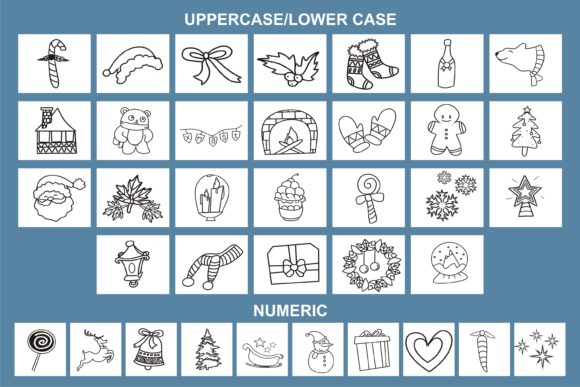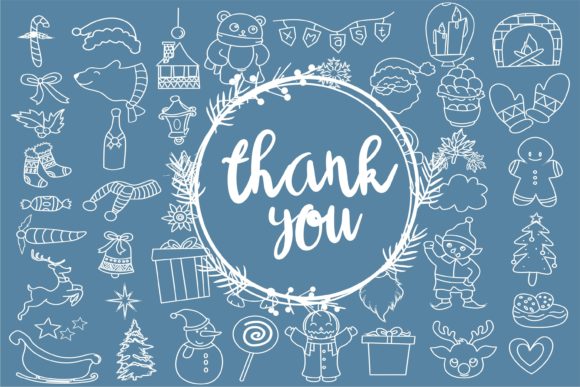
About Christmas Box Font
“Christmas Box” is a versatile and imaginative dingbats font that brings a touch of creativity and excitement to your designs. With its charming symbols inspired by the holiday season, this font is a valuable addition to your font library, capable of enhancing any creation.
The symbols in “Christmas Box” are uniquely designed to capture the essence of Christmas. From gift boxes and ornaments to snowflakes and stars, each character embodies the joy and spirit of the holiday season. With this font, you can easily incorporate these festive symbols into your projects, adding a whimsical and playful touch.
No matter the topic of your design, “Christmas Box” can be an incredible asset. Its wide range of symbols allows for endless possibilities and creative combinations. Whether you’re designing Christmas-themed graphics, holiday-themed promotions, or simply adding a festive touch to your designs, this font provides the perfect elements to elevate your creations.
Crafting projects come to life with the help of “Christmas Box.” Whether you’re creating handmade cards, gift tags, or decorations, this font allows you to incorporate delightful symbols that capture the spirit of the season. Use the symbols as decorative accents, borders, or even create patterns and illustrations. “Christmas Box” adds a touch of whimsy and charm to your craft projects.
Digital designs also benefit from the creativity of “Christmas Box.” Whether you’re designing social media graphics, website banners, or digital invitations, this font offers an array of symbols to create visually appealing compositions. Use the symbols to convey the festive mood, create eye-catching layouts, and engage your audience. Your digital designs will stand out and spread the joy of Christmas.
Presentations during the holiday season can be enhanced with the help of “Christmas Box.” Whether you’re preparing slides for a business meeting, a school project, or a holiday event, this font allows you to incorporate festive elements that captivate your audience. Use the symbols to create themed headers, decorative dividers, or illustrative visuals. “Christmas Box” adds a touch of cheer and excitement to your presentations.
Greeting cards become more captivating and personal with the addition of “Christmas Box.” Whether you’re designing cards for friends, family, or clients, this font offers a variety of symbols to express the holiday spirit. Create unique and memorable cards by combining different symbols, arranging them in creative ways, and customizing the colors. “Christmas Box” adds a playful and joyful element to your greeting card designs.
In conclusion, “Christmas Box” is a cool, creative, and useful dingbats font that brings a touch of whimsy and excitement to your designs. With its charming symbols inspired by the holiday season, this font has the potential to elevate any creation. Whether you’re working on crafts, digital designs, presentations, or greeting cards, “Christmas Box” offers a delightful collection of symbols to make your projects shine. Embrace the festive spirit and let “Christmas Box” become your go-to font for all things merry and bright.